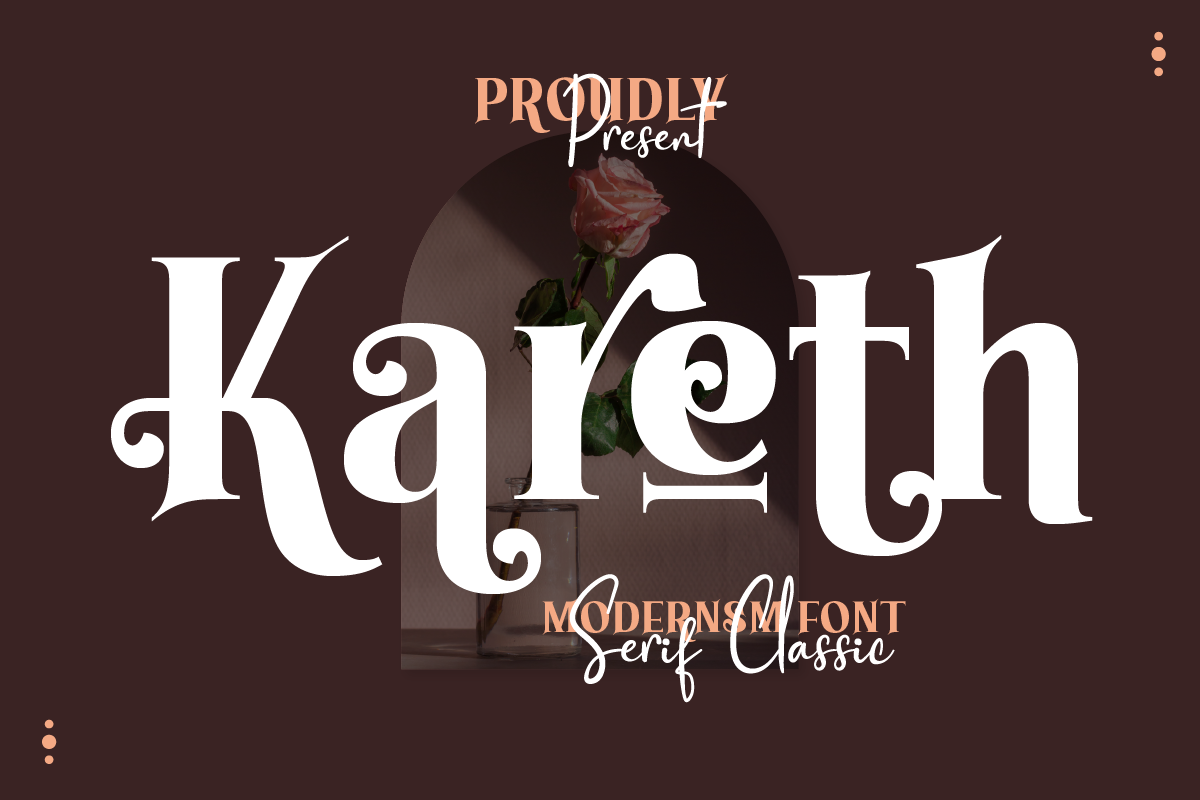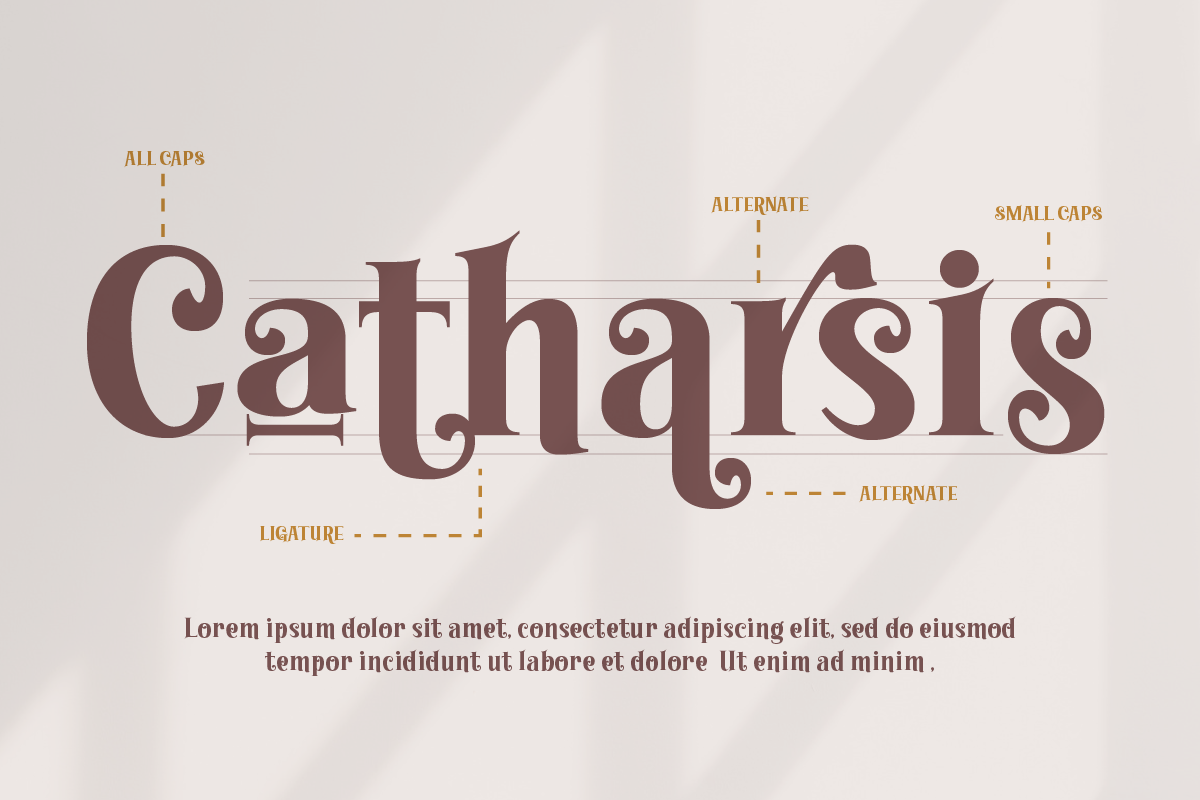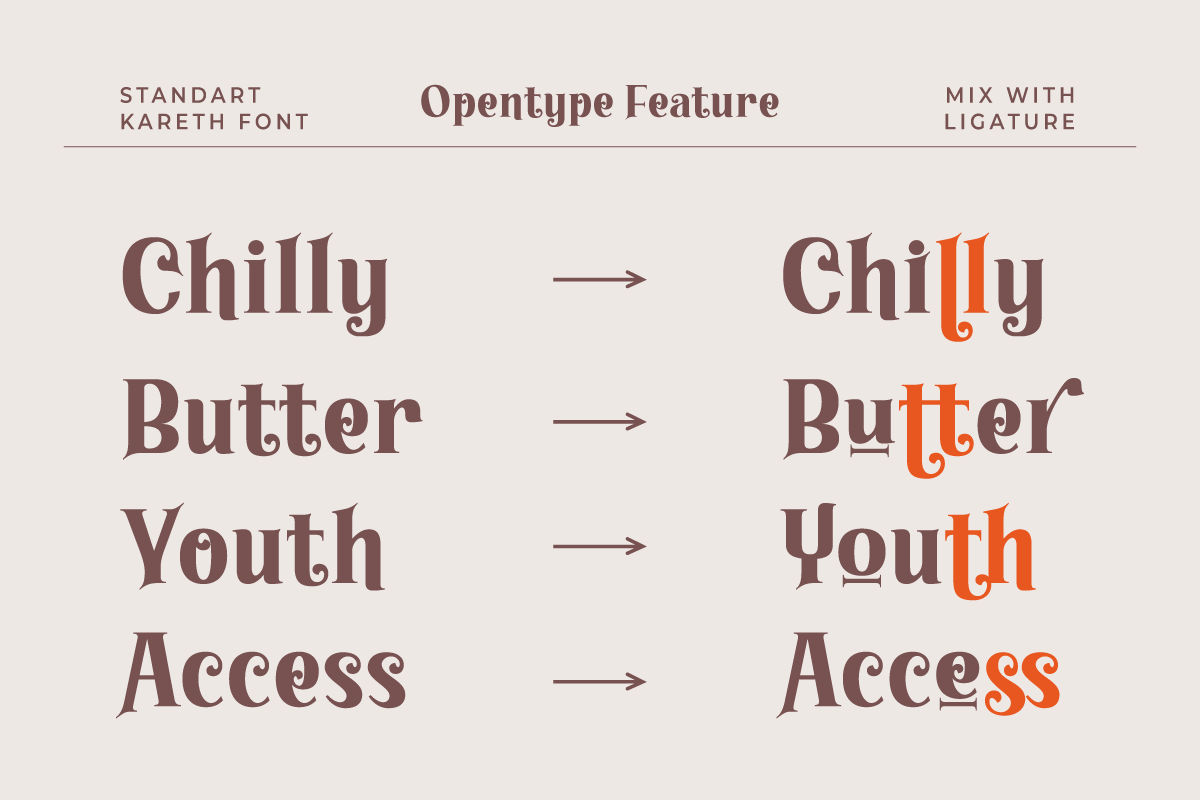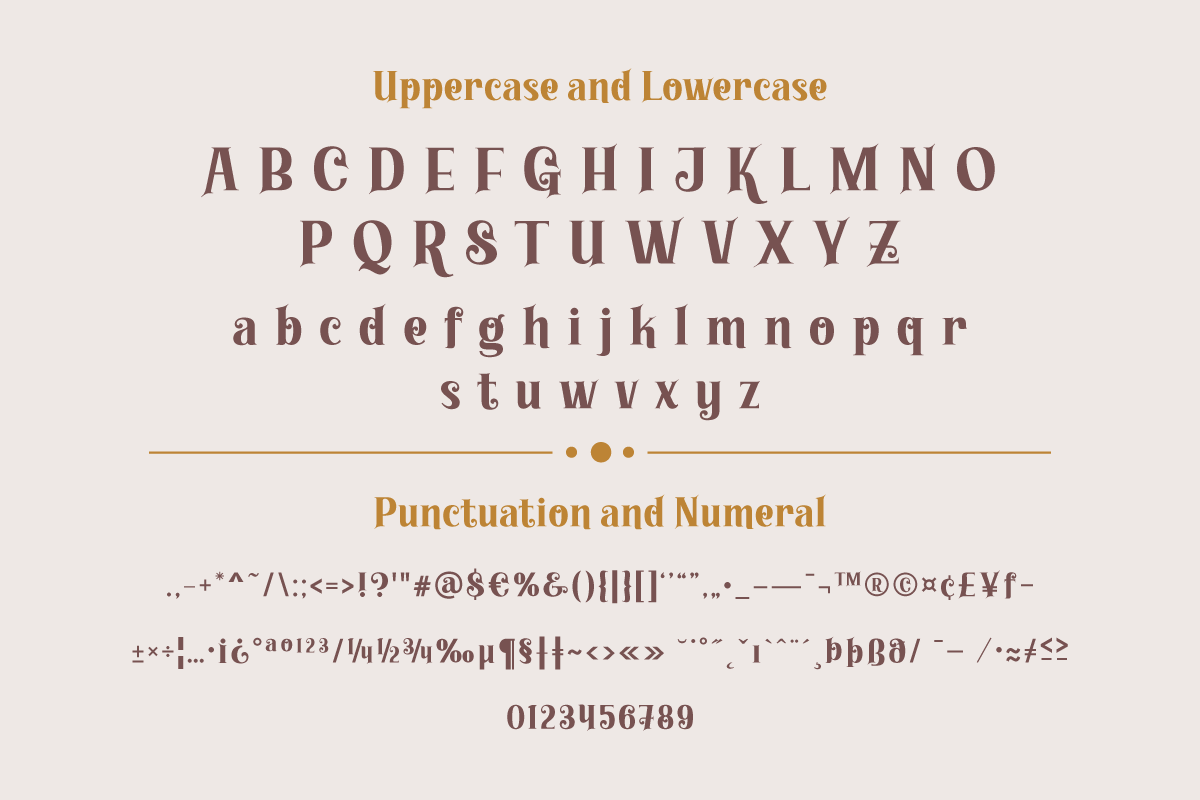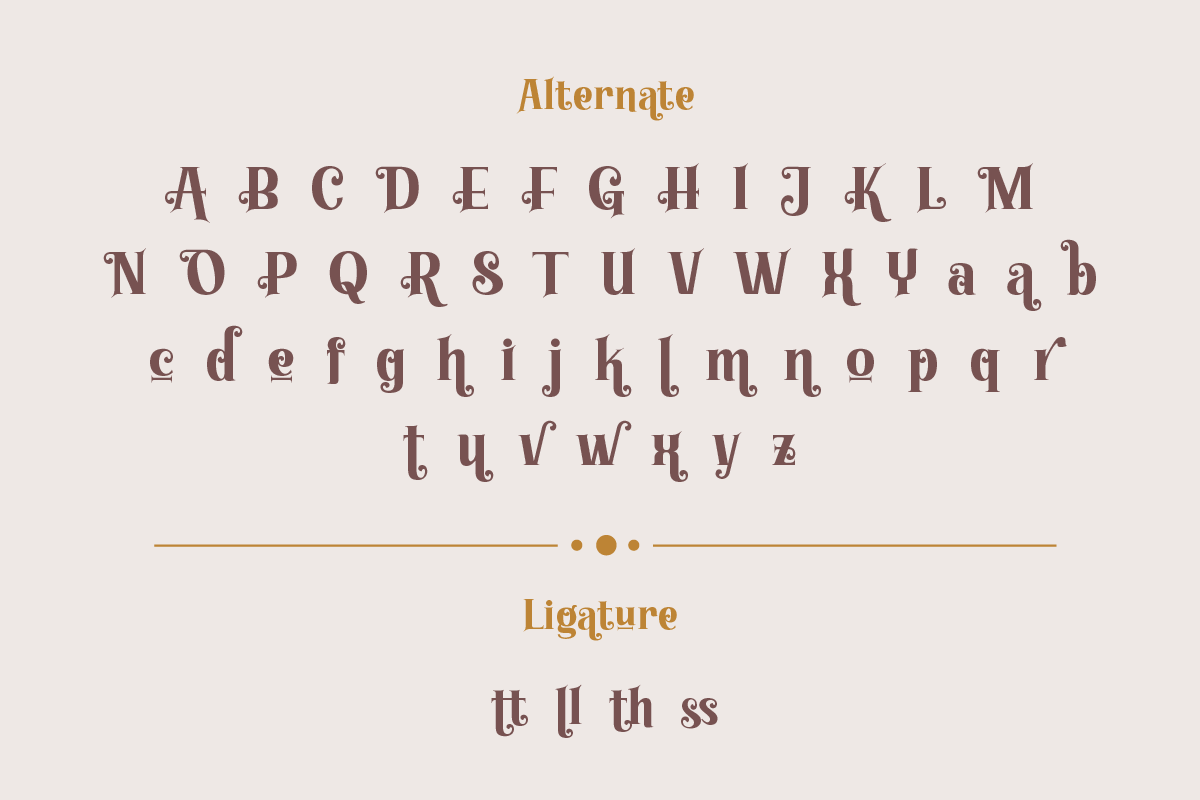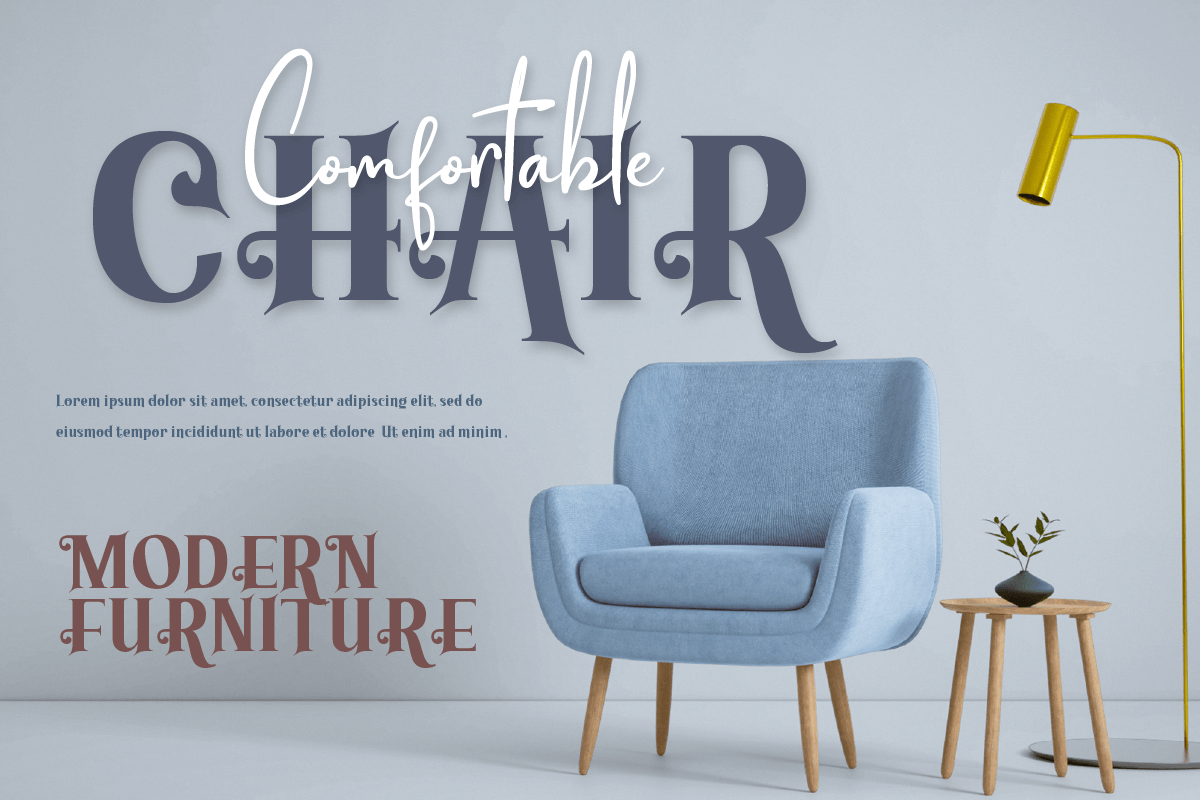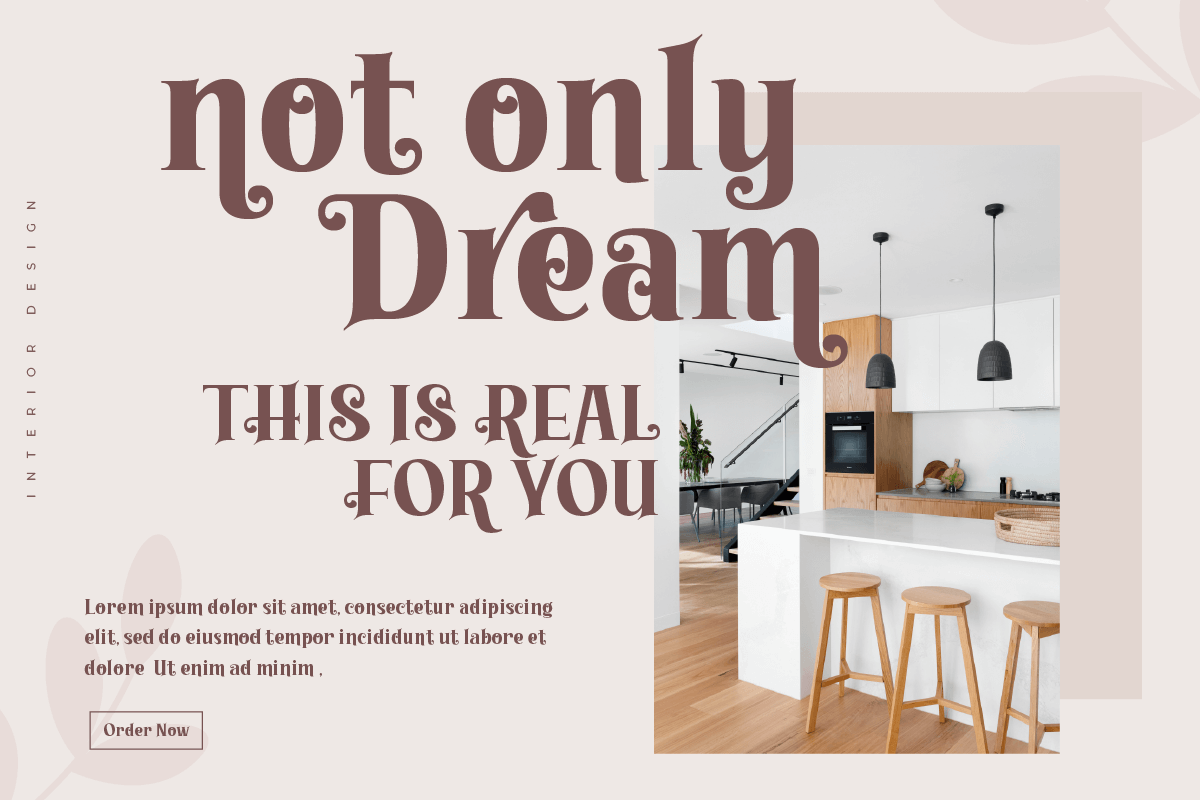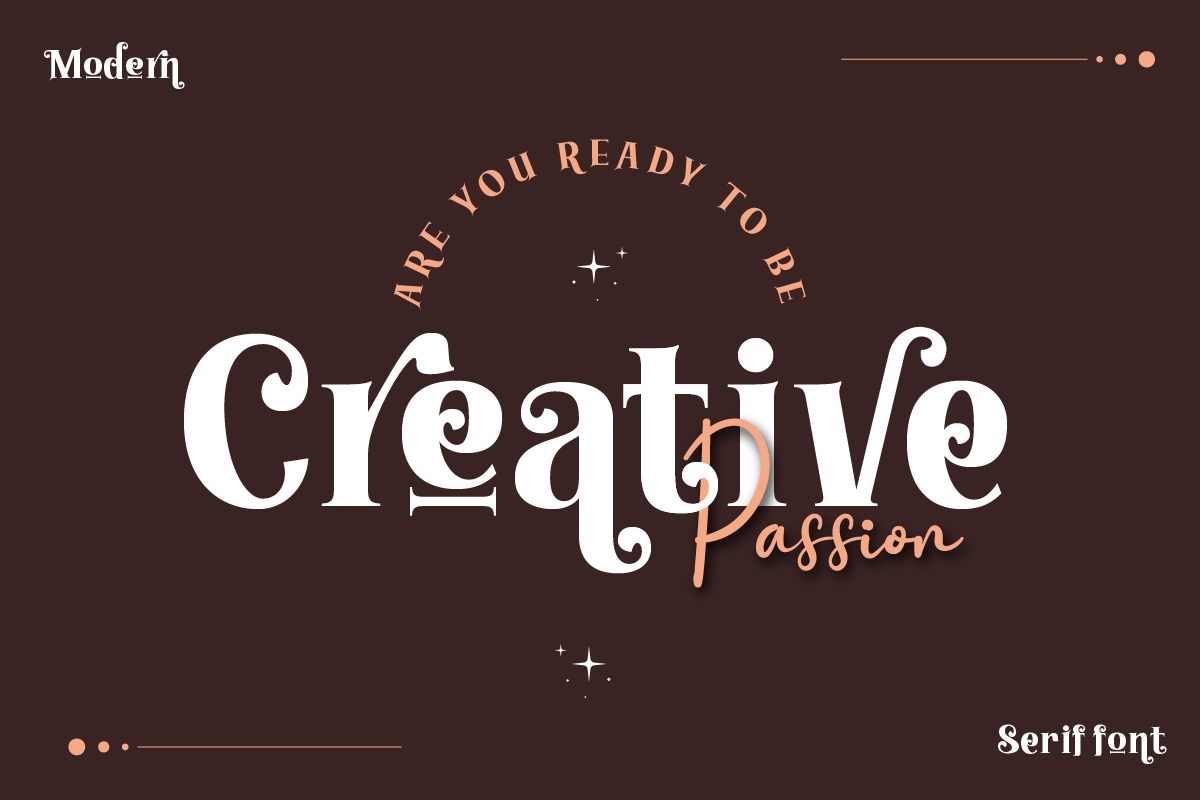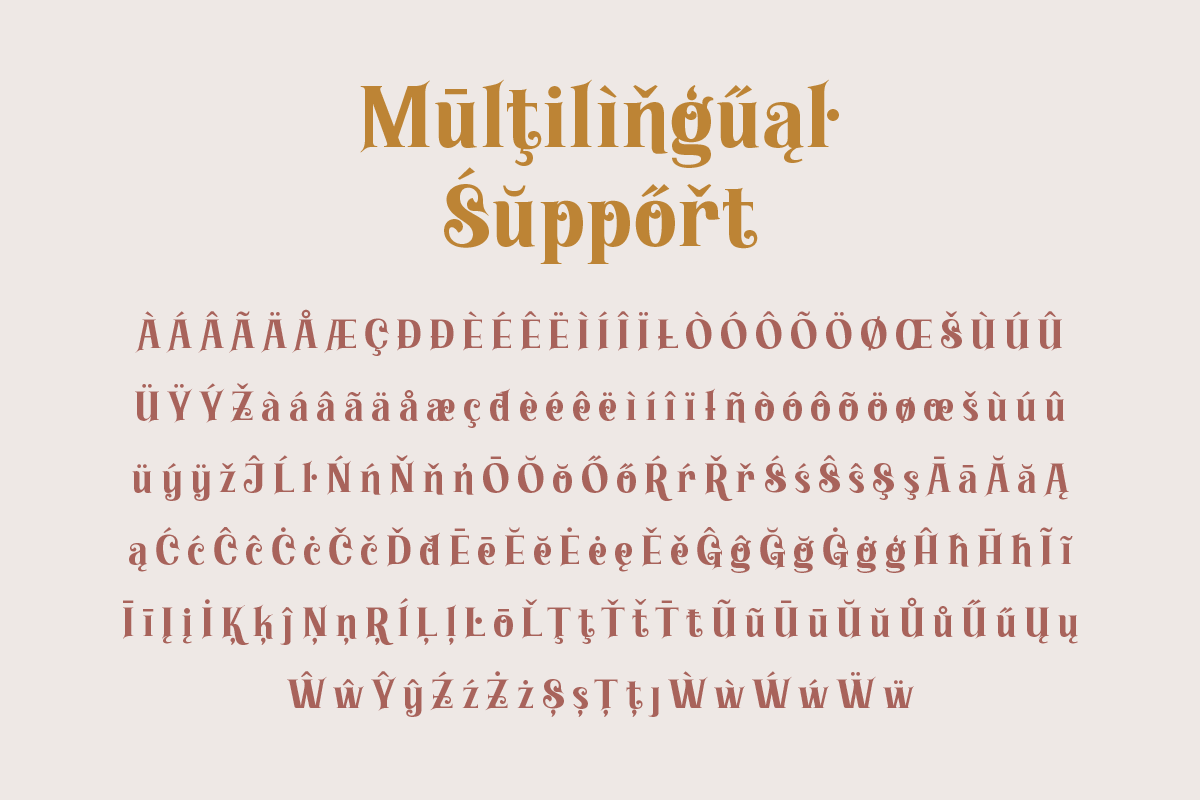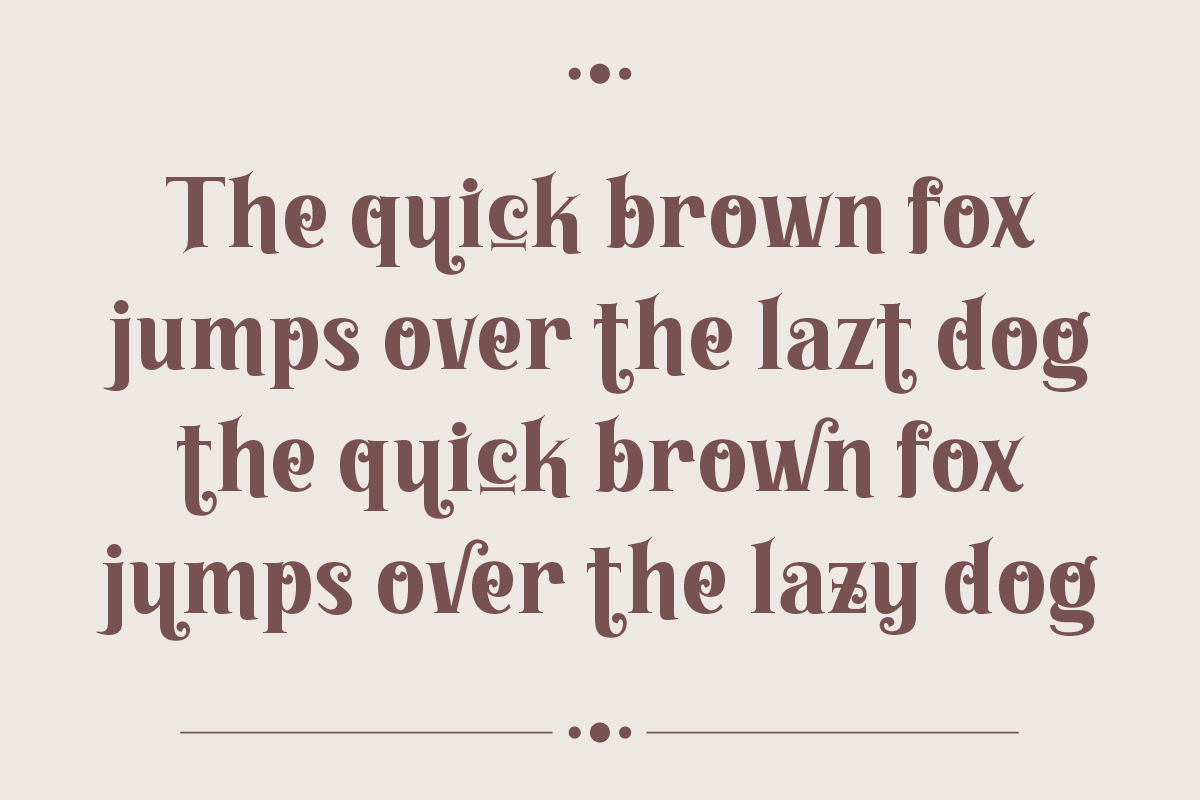
Kareth – Classic Serif font
Kareth Classic Serif font is the epitome of timeless elegance. With its classic and refined design, this font is perfect for any project that requires a touch of sophistication. The font features elegant serifs and clean lines that exude an air of classic sophistication. The font is also enriched with stylistic alternates and ligatures that add a touch of artistic flair to your designs.
Kareth font is a versatile font that is suitable for a wide range of projects. It is ideal for creating logos, branding materials, and any design project that requires a classic and refined look. With its multilingual support, the font can be used for projects that require text in different languages.
Whether you are working on a branding project, a wedding invitation, or any design project that requires a classic touch, Kareth font is a perfect choice. With its timeless design and stylistic alternates and ligatures, this font is sure to elevate any design project and make it stand out.